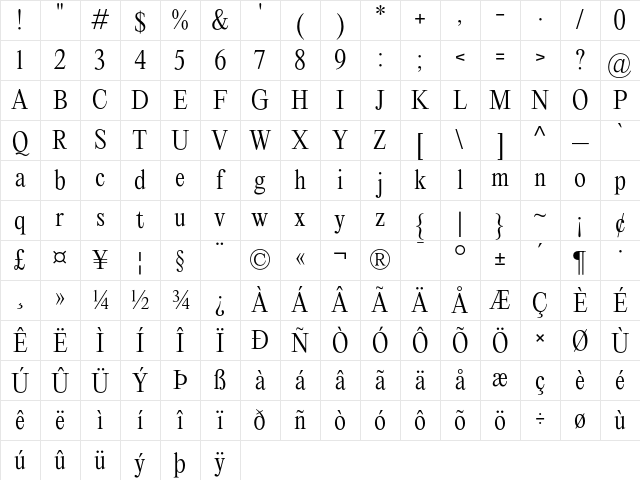
Editorial New is a composed and adaptable typeface that performs quietly and consistently across a wide range of design contexts. Its slender proportions lend an understated elegance to any composition.